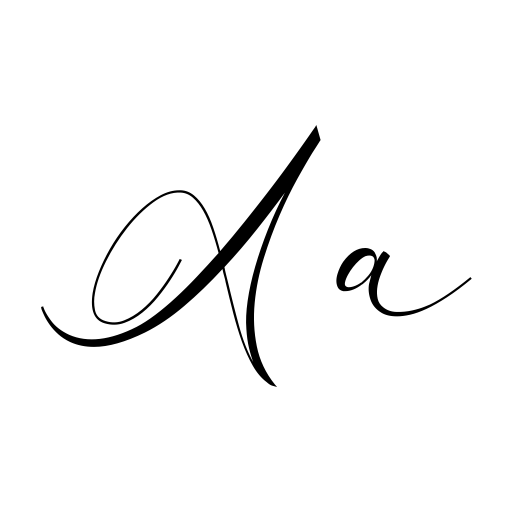
Aucklands Script Font is an elegant, delicate script typeface with fine, flowing strokes that give it a graceful, handwritten feel. Its slender, slightly irregular letterforms and high contrast between thick and thin lines create a refined and artistic look, perfect for luxury branding, invitations, and stylish editorial designs. This font shines in applications where a sophisticated and personal touch is desired, especially in headlines and decorative text.
Aucklands Script Font
About Aucklands Script Font
| Font family | Aucklands Script Font |
| Designer | Arfi Ardian |